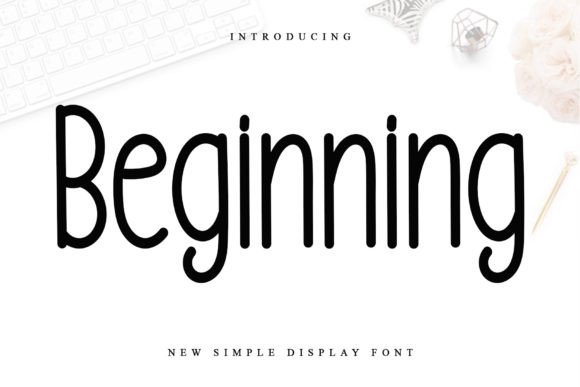
Beginning: A Stylish Display Font
In the crowded landscape of digital and print media, a single typeface can often be the deciding factor between a design that merely exists and one that truly resonates. Beginning is a stylish and incredibly elegant display font that captures this essence perfectly, offering designers a sophisticated tool to elevate their creative projects. For professionals navigating the nuances of visual communication, finding a typeface that balances artistic flair with functional readability is paramount. This font stands out not just for its aesthetic appeal but for its ability to inject personality and warmth into various design contexts.
The Role of Elegant Typography in Modern Branding
Typography is more than just selecting letters; it is the foundation of brand identity and visual storytelling. In modern graphic design, the choice of font sets the tone for how an audience perceives a message. Beginning brings a handwritten touch that feels personal yet polished, making it an excellent asset for brands aiming to convey authenticity and elegance. Whether you are crafting a luxury logo or designing intimate stationery, the fluid strokes and refined curves of this typeface help establish a strong visual hierarchy while maintaining a cohesive look.
When integrated into a comprehensive design workflow, high-quality creative assets like Beginning streamline the process of creating consistent materials across different platforms. It allows designers to move beyond generic sans-serifs and experiment with styles that evoke emotion. This emotional connection is crucial in digital marketing and social media graphics, where capturing attention within seconds is essential.
Practical Applications Across Design Disciplines
The versatility of Beginning makes it suitable for a wide array of applications, from print to digital interfaces. Here are key areas where this font excels:
- Branding and Logo Design: Its unique character makes it ideal for boutique businesses, fashion labels, and lifestyle brands seeking a distinctive mark.
- Wedding Invitations and Greeting Cards: The font's natural elegance looks stunning on wedding invitations, thank you cards, and quotes, adding a layer of sophistication to celebratory moments.
- Editorial and Packaging Design: Use it for headlines or accent text in magazines and product packaging to draw the eye and enhance the perceived value of the item.
- Web and UI Design: While primarily a display font, it works beautifully for hero sections, call-to-action buttons, or navigation accents in web design and UX design.
- Advertising Campaigns: Incorporate it into posters and ads to create a memorable visual impact that stands out against cluttered backgrounds.
Optimizing Visual Impact and Readability
While Beginning offers immense creative potential, effective usage requires a strategic approach to visual design. As a display font, it shines when used sparingly. Overuse can dilute its impact and compromise legibility. To maximize its effectiveness, pair it with clean, neutral sans-serif fonts for body text. This contrast ensures that the main message remains clear while the decorative elements provide the necessary stylistic punch.
Consider the color palette and composition carefully. The delicate lines of Beginning may require sufficient negative space to breathe. In print design, ensure high-resolution output to maintain crisp edges, especially at smaller sizes. For digital applications, test scalability across devices to guarantee that the intricate details remain visible on mobile screens. Consistency is key; once you integrate this font into your brand system, apply it uniformly across all touchpoints to reinforce brand recognition.
Evaluating Design Assets for Your Projects
When selecting creative resources, always evaluate them against your specific design goals and audience expectations. Ask yourself if the typography aligns with the brand voice. Does Beginning communicate the right level of formality or playfulness? Does it support the overall modern aesthetics you are striving for? A well-chosen font enhances user engagement by making content more inviting and easier to digest.
Furthermore, consider the technical compatibility of the font file with your preferred software and web deployment methods. Ensuring smooth integration prevents workflow bottlenecks and maintains professional presentation standards. By thoughtfully incorporating assets like Beginning into your toolkit, you empower yourself to create designs that are not only visually striking but also functionally robust.
Ultimately, the power of great design lies in the details. Choosing the right typography is a deliberate act that shapes how your message is received. Whether you are launching a new product, planning a wedding, or refreshing a corporate identity, leveraging premium fonts like Beginning can transform ordinary layouts into extraordinary experiences. By prioritizing quality creative assets and thoughtful execution, you ensure that your work leaves a lasting impression on every viewer.